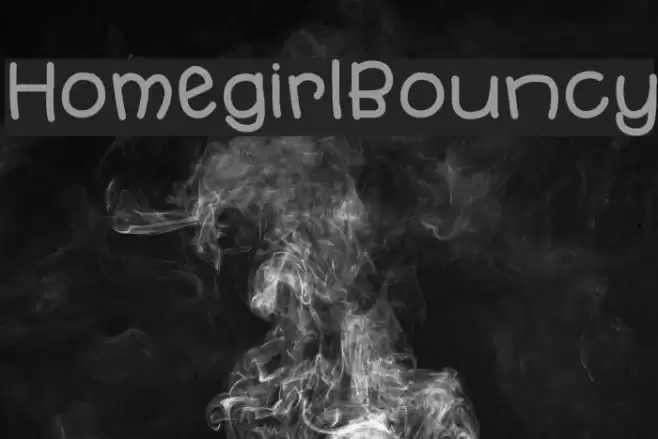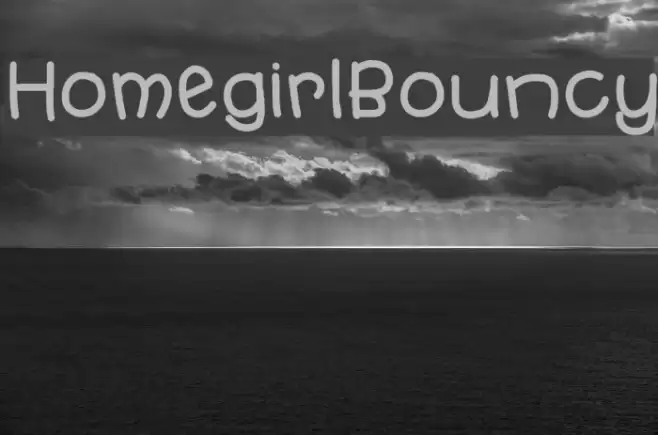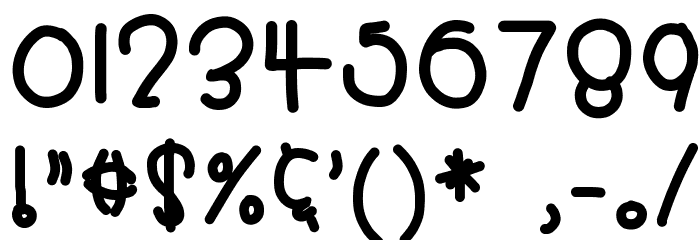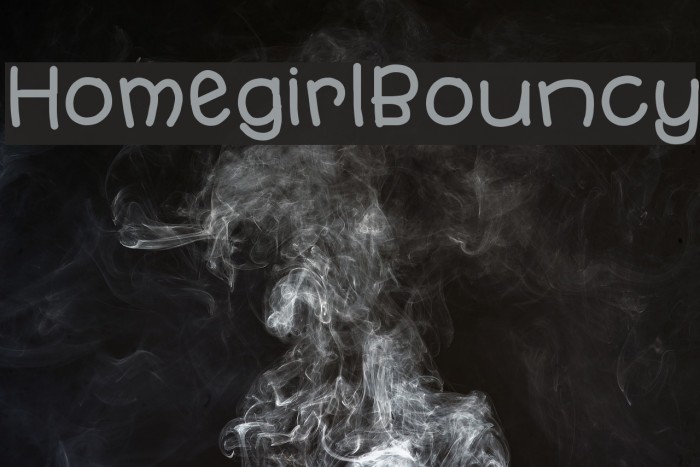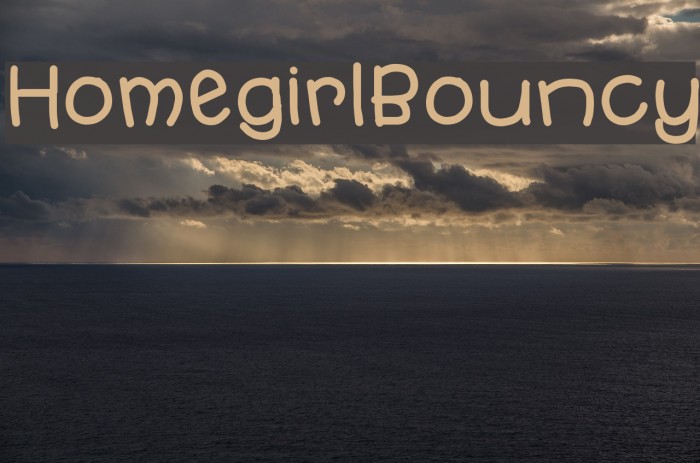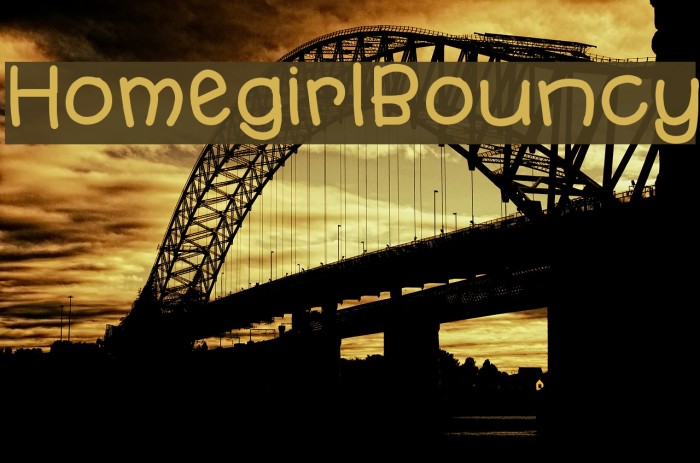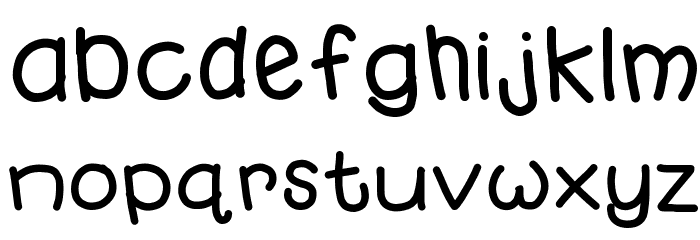
HomegirlBouncy Font
HomegirlBouncy Description
This playful and energetic font features a bouncy, handwritten style that exudes a sense of fun and whimsy. The characters are rounded and slightly irregular, giving them a casual and approachable feel. The uppercase and lowercase letters maintain a consistent style, with a slight tilt and varying stroke thickness that adds to the font's dynamic appearance. The numerals and special characters are equally lively, ensuring a cohesive look across all text elements. This font is perfect for projects that require a touch of personality and charm.
A playful, bouncy handwritten font with a lively and whimsical style from Uncategorized fonts.
- Proposed Projects: Ideal for children's books, playful branding, greeting cards, and social media graphics.
- Use Case: Headlines, Logos, Informal Text